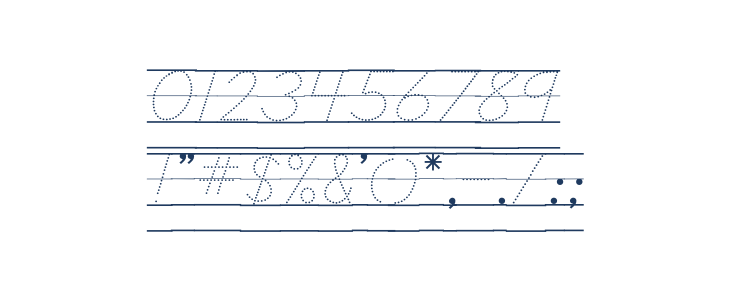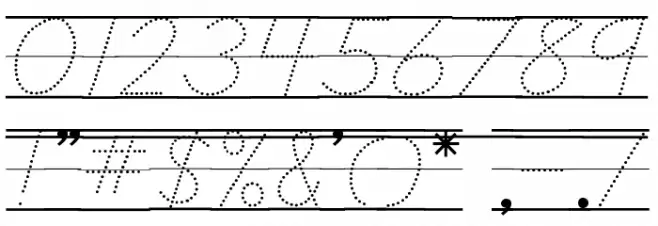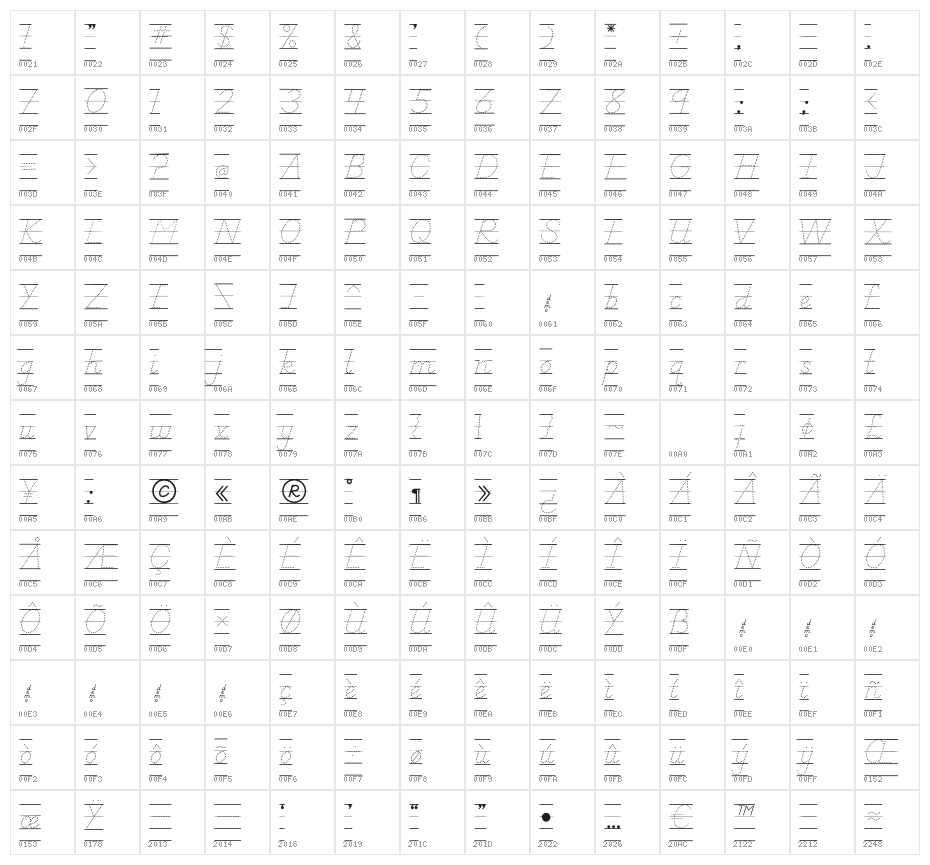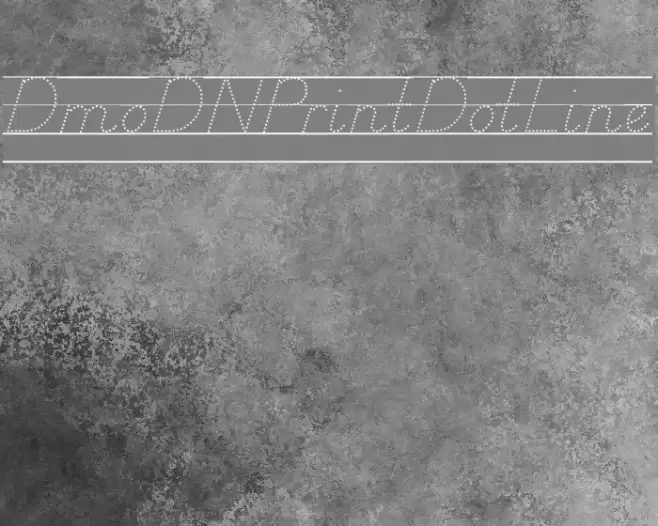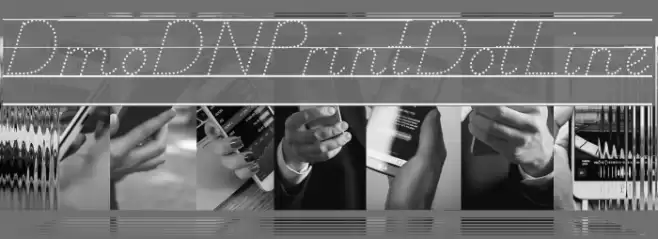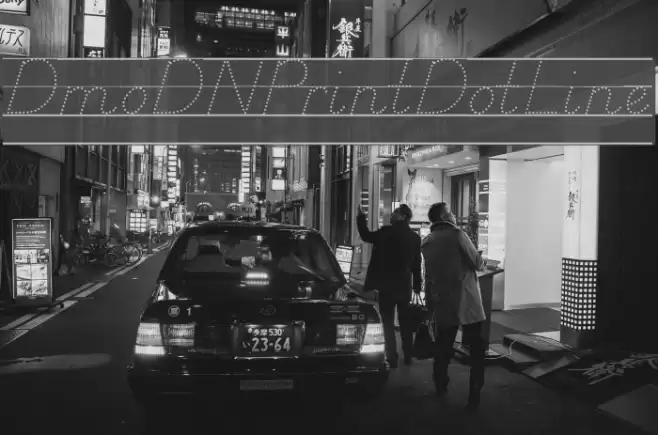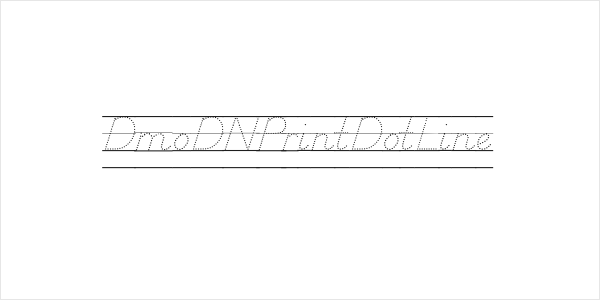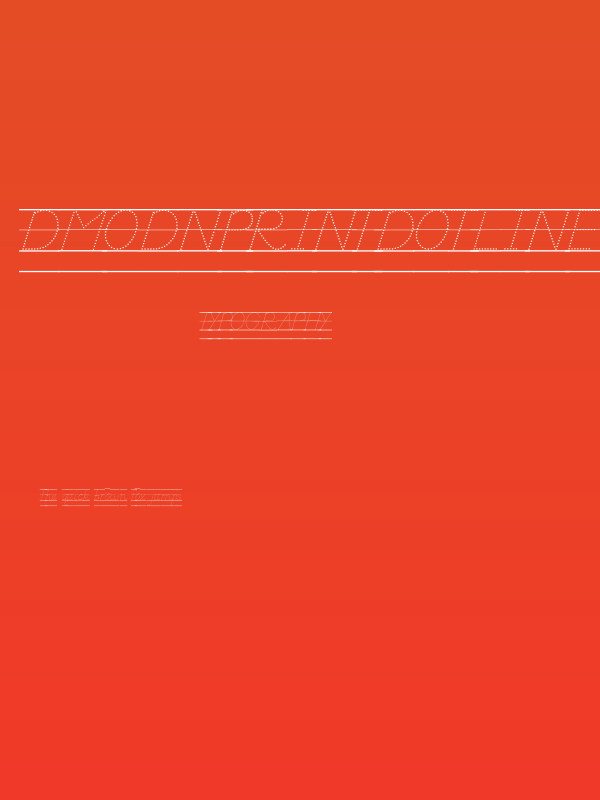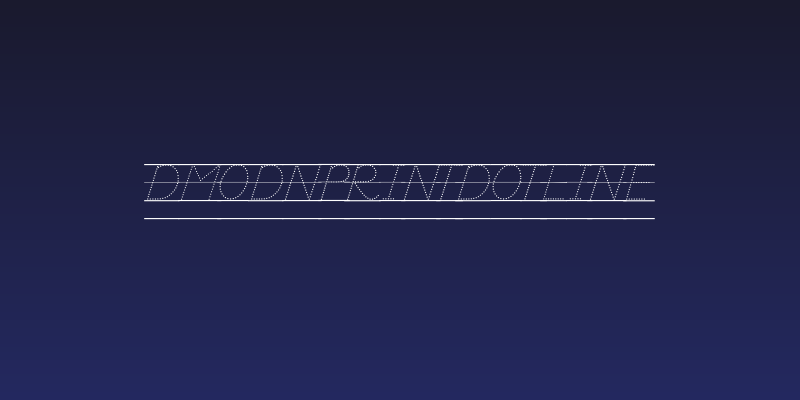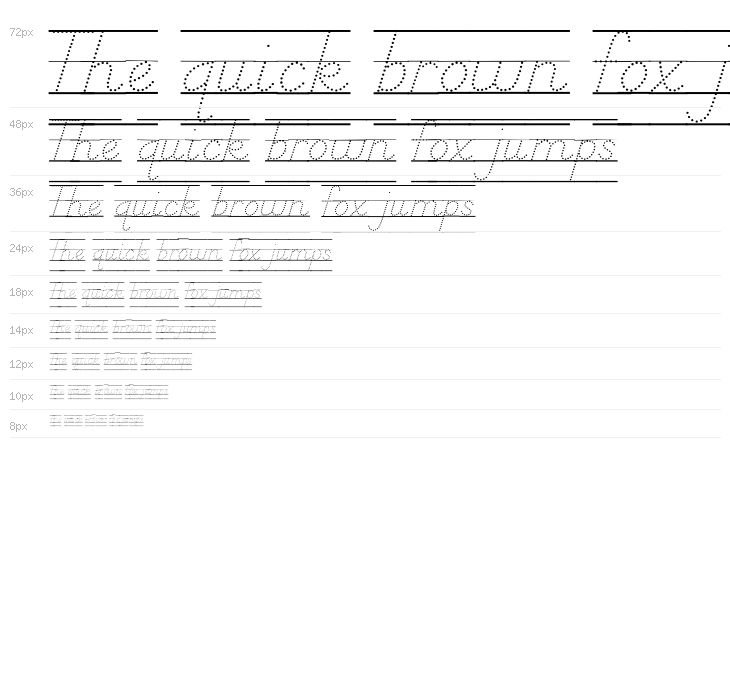
DmoDNPrintDotLine Font
DmoDNPrintDotLine Description
This font is designed with a dotted line style, reminiscent of handwriting practice sheets. Each character is composed of evenly spaced dots, creating a clear and structured appearance. The uppercase and lowercase letters maintain a consistent slant, giving the font a cursive-like flow. Numbers and special characters follow the same dotted pattern, ensuring uniformity across all glyphs. This style is particularly useful for educational purposes, such as teaching handwriting to beginners, as it guides the learner's hand in forming each letter correctly. The font's playful yet instructional design makes it suitable for children's materials and educational tools.
| Overall Style | Educational, Playful |
| Use Case | Educational materials, Handwriting practice sheets |
| Proposed Projects | Perfect for educational worksheets, children's books, and instructional materials focused on handwriting skills. |